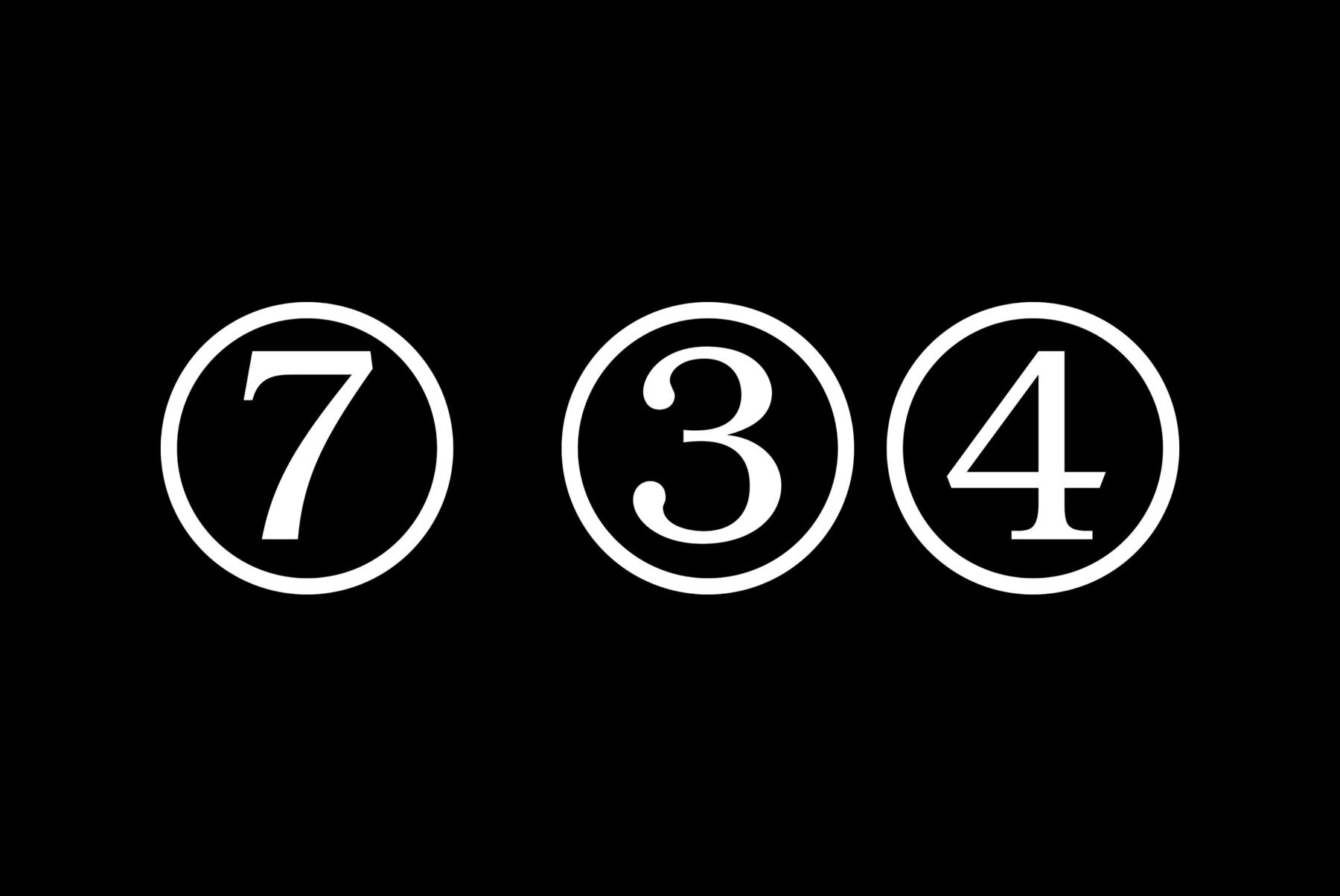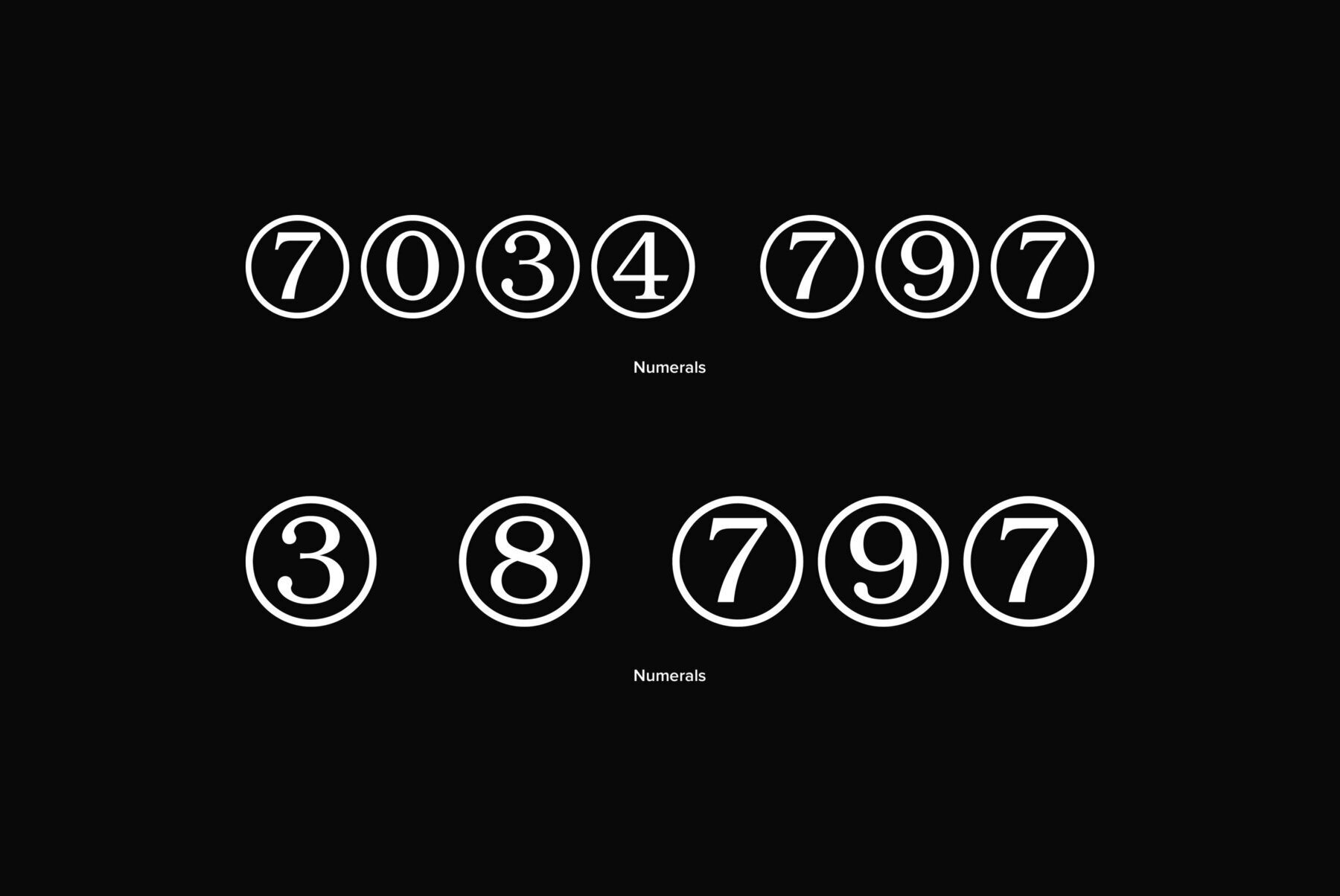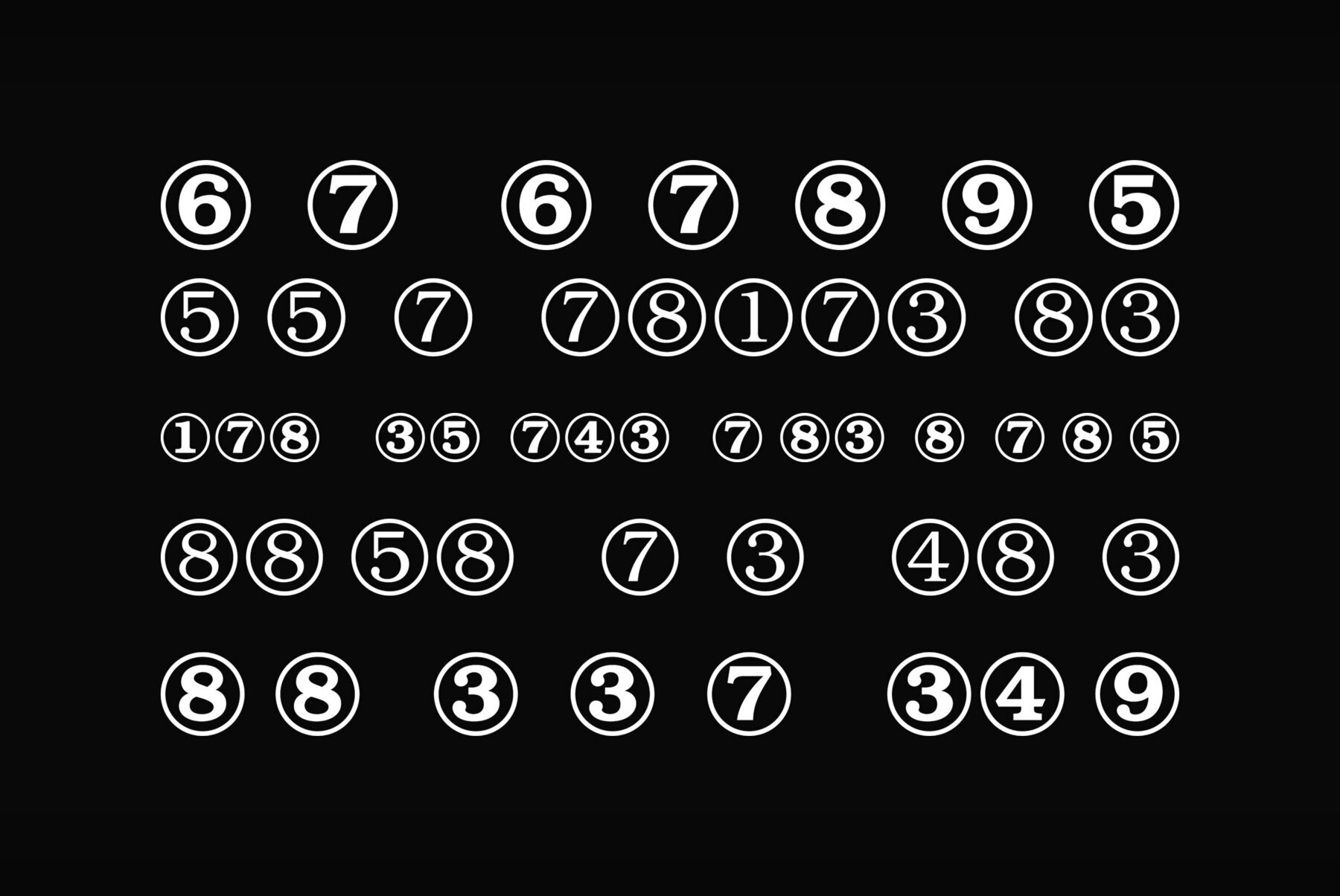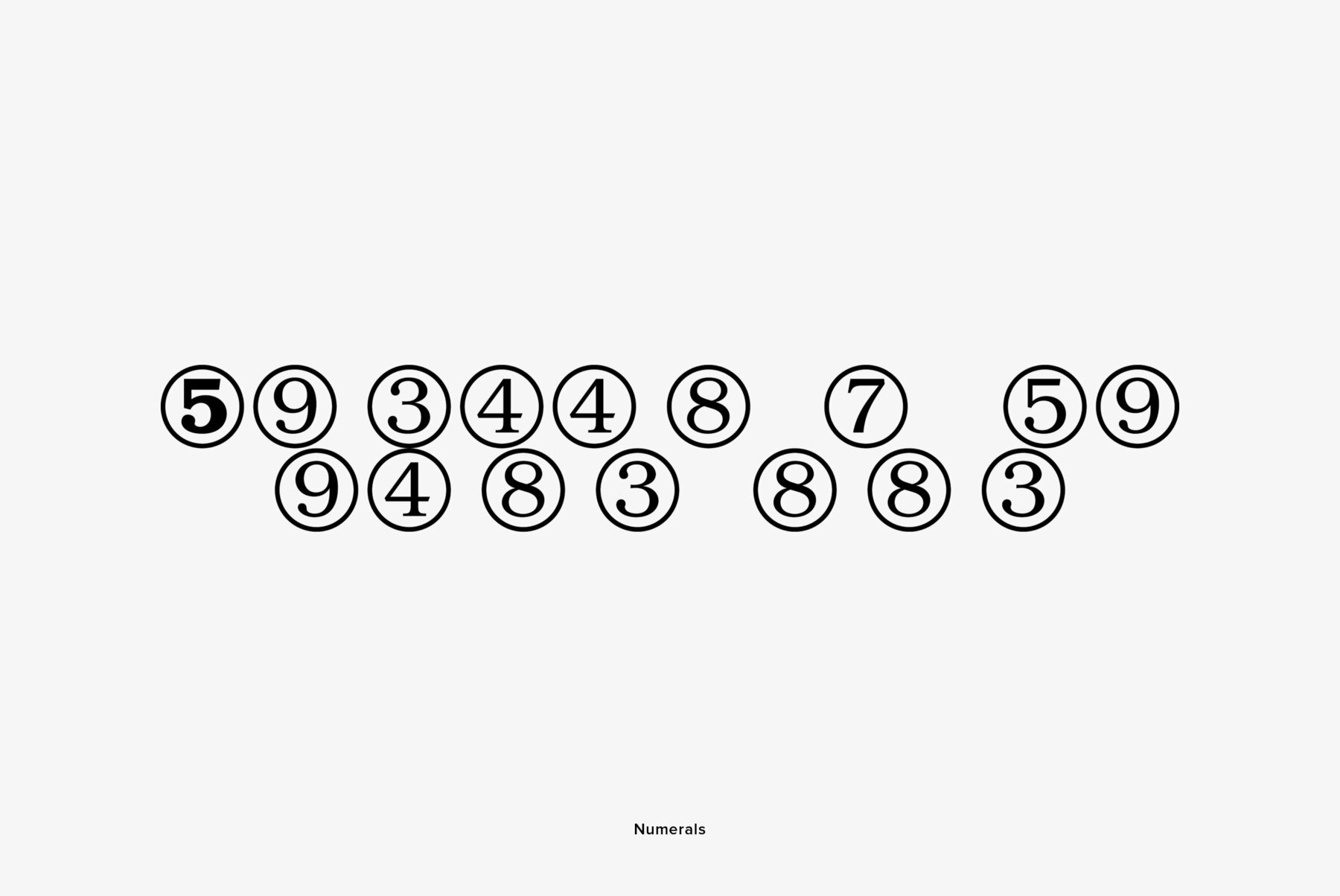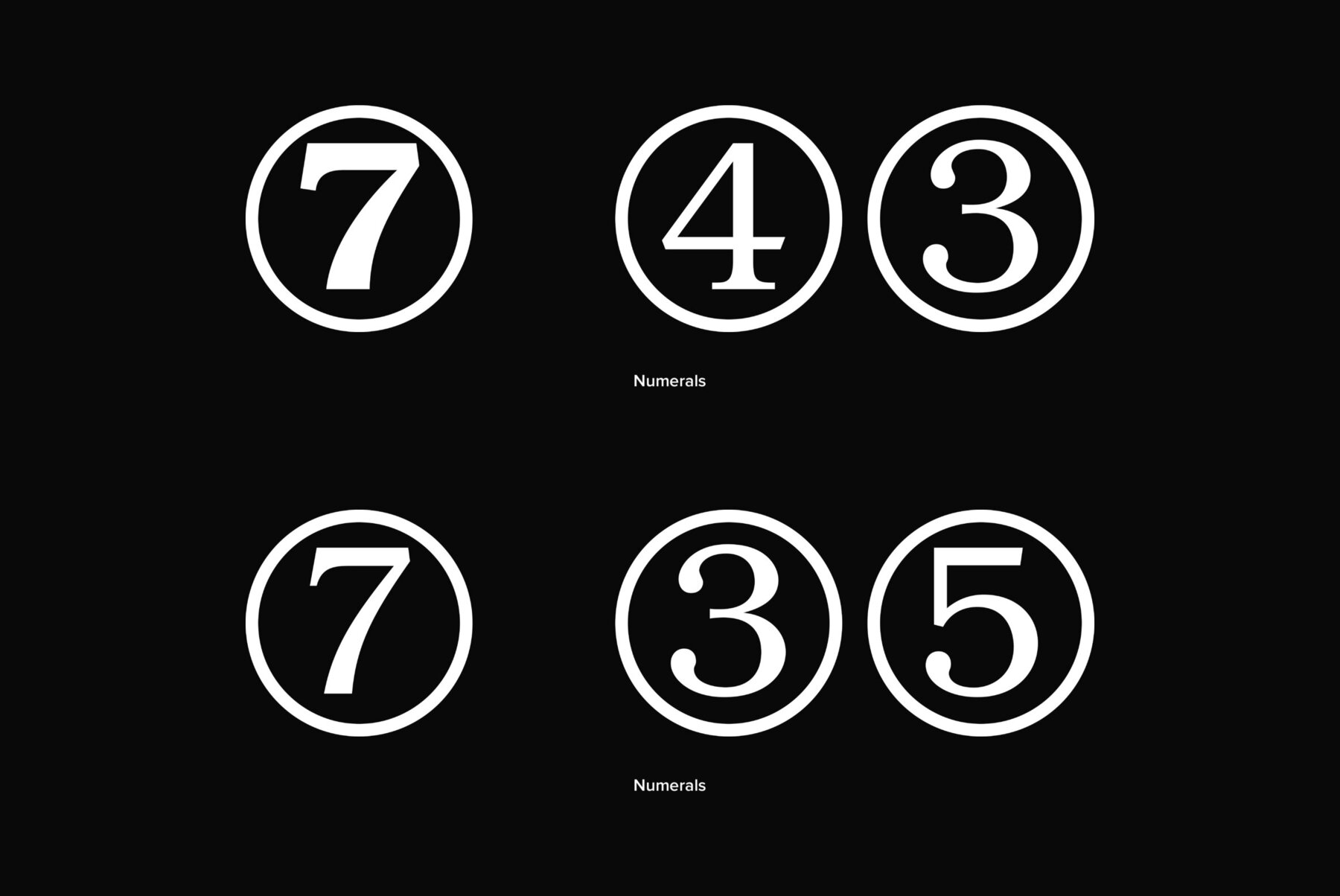
A set of figures designed at ParaType (ParaGraph) in 1992 by Elvira Slysh.
Numerals Numerals
A set of figures designed at ParaType (ParaGraph) in 1992 by Elvira Slysh.